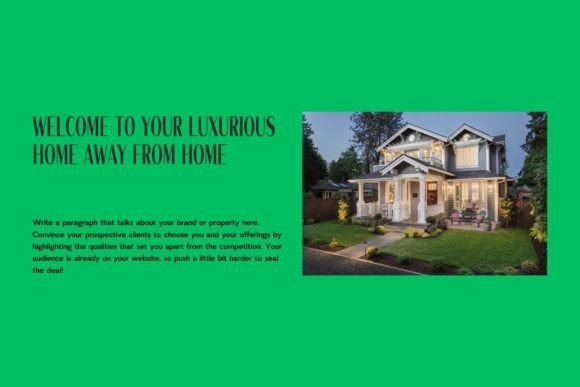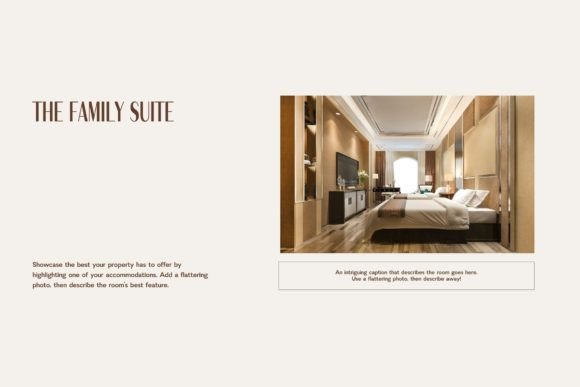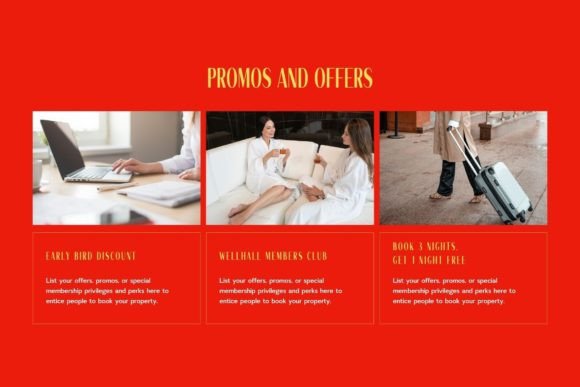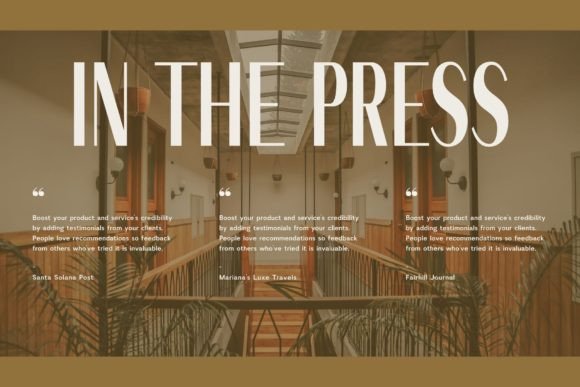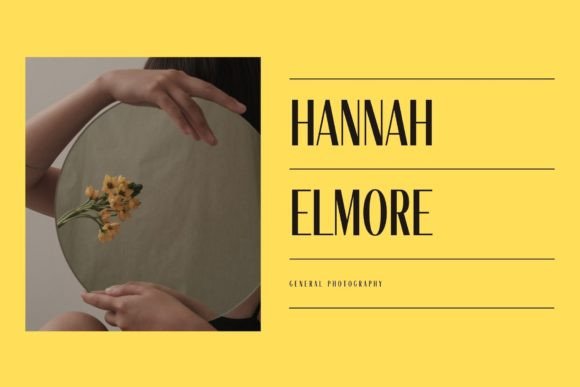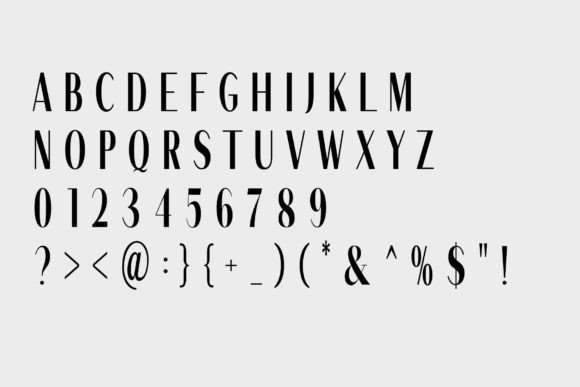
A Fresh Perspective: Introducing Berlyna Font
Have you ever stared at a blank canvas, trying to find the perfect font to bring your design to life? The struggle is real, but what if I told you that there’s a solution that can make your creative process a whole lot easier? Enter the world of Berlyna Font, a modern condensed sans font that’s about to become your new go-to partner in design.
Berlyna Font is more than just a font – it’s a key to unlocking sleek, sophisticated designs that exude professionalism and clarity. Its clean lines and space-efficient design make it the perfect choice for projects where a streamlined look is essential. Whether you’re crafting logos, headlines, or signage, Berlyna Font brings a touch of modern elegance to your typography, making it a valuable addition to any designer’s toolkit.
Berlyna Font Key Features
- Unique Characteristics: Berlyna Font features a unique blend of modern and traditional elements, with a focus on clean lines, geometric shapes, and a bold yet elegant feel.
Designer Review: Berlyna Font
Overall, I have mixed feelings about the Berlyna font. It’s a sans-serif font that tries to achieve a balance between modernity and classic elegance. While it has its strengths, it also has some limitations that might make it less desirable for certain projects.
- X-height is consistent across all weights, making it great for body text.
- Legibility is excellent, even at smaller sizes.
- It has a subtle, sophisticated feel that’s perfect for corporate or luxury brands.
- The font family is quite large, with multiple weights and styles to choose from.
- Some characters, like the ‘g’ and ‘q’, have a slightly awkward shape that can be distracting.
- The font doesn’t have a strong personality, making it blend in with the crowd.
- It might be too generic for projects that require a bold, statement-making font.
- The italic styles could be more nuanced and expressive.
Overall, I think the Berlyna font is a solid choice for projects where a classic, elegant look is desired. However, it may not be the best option for projects that require a more distinctive or bold font. With some refinement, particularly in the italic styles, I think it could be a top contender in the sans-serif font family.
Tips for Getting the Most Out of Berlyna Font
Use Berlyna Font for titles, headings, and other prominent text elements.
Pair Berlyna Font with a clean and simple background to let the font stand out.
Berlyna Font is ideal for:
Brochures and flyers
Business cards and letterheads
Web design and digital marketing materials
Alternatives to Berlyna Font
Playfair Display is a high-end serif font ideal for titles, headings, and other prominent text. It’s perfect for designers who want to add a touch of elegance and sophistication to their designs. Compared to Berlyna Font, Playfair Display is more formal and luxurious, making it suitable for high-end branding, advertising, and editorial projects.
Montserrat is a sans-serif font that’s perfect for modern and urban designs. It’s highly legible and versatile, making it suitable for a wide range of applications, from digital interfaces to print materials. Compared to Berlyna Font, Montserrat is more minimalist and clean, making it ideal for designers who want to create a modern and sleek look.
Merriweather is a classic serif font that’s perfect for body text, articles, and other written content. It’s highly legible and easy to read, making it suitable for designers who want to create a timeless and traditional look. Compared to Berlyna Font, Merriweather is more traditional and conservative, making it ideal for designers who want to create a classic and sophisticated look.
Great Vibes is a script font that’s perfect for creative and expressive designs. It’s highly stylized and elegant, making it suitable for designers who want to add a touch of personality and flair to their designs. Compared to Berlyna Font, Great Vibes is more expressive and creative, making it ideal for designers who want to create a unique and attention-grabbing look.